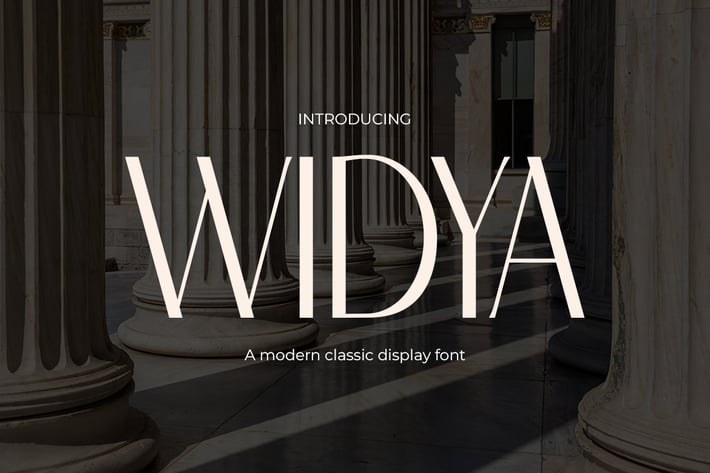
Widya - Classic Sans Serif Modern Font
Widya presents a captivating blend of timeless grace and contemporary appeal within a sleek, sans-serif design. This font epitomizes versatility and is ideal for fashion, logos, quotes, invitations, posters, greeting cards, packaging, branding, wedding quotes, cover albums, business cards, and postcards. Its classic yet modern style seamlessly adapts to diverse design needs, lending a touch of sophistication to every project.
The elegance and simplicity of Widya's sans serif style transcend traditional boundaries, embodying a refined charm that resonates with various creative endeavors. It adds a layer of sophistication, making it an exquisite choice for those seeking a classic yet contemporary font for their artistic ventures.